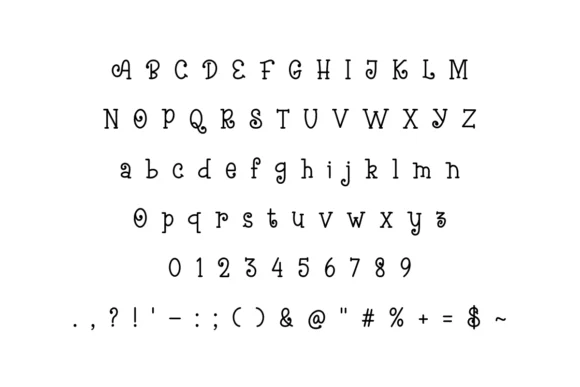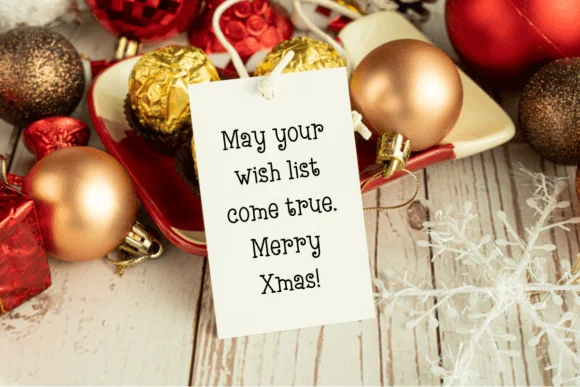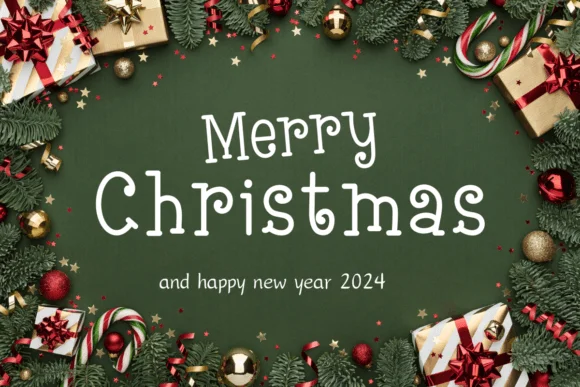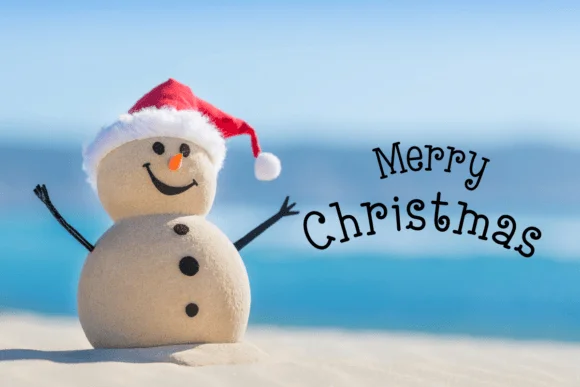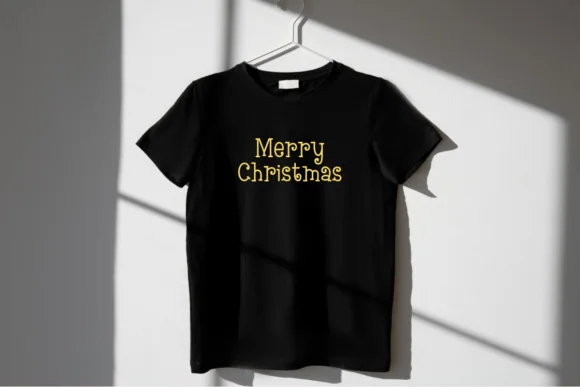
Welcome Christmas Font
This inviting font is perfect for Christmas welcome signs, holiday greeting displays, festive door decorations, Christmas visitor announcements, holiday hospitality branding, welcoming Christmas invitations, front door Christmas messages, festive entry signage, Christmas home decorations, and warm seasonal hospitality communications.
Welcome Christmas Font is exciting because it embodies the warm hospitality and open-hearted invitation that defines the true spirit of Christmas through its embracing letterforms that extend a genuine welcome to all who encounter them. The font features open, friendly characters with welcoming curves and hospitable details that mirror the way Christmas opens hearts and homes to family, friends, and even strangers, incorporating gentle flourishes and inviting proportions that make every reader feel personally welcomed into the Christmas celebration. Each letter showcases the generous spirit and inclusive nature that makes Christmas special, with accessible design and warm touches that create typography as welcoming as a lit doorway on a snowy Christmas evening. The design perfectly captures the essence of Christmas hospitality, creating text that feels like a warm embrace and a sincere invitation to join in the joy and fellowship of the season.
The Welcome Christmas Font family includes hospitable style variations: Regular, Bold, Light, Open, and Warm versions. The collection features special welcoming elements including open door flourishes, hospitality accents, friendly star details, and embracing ornamental touches. Additional components include welcoming borders, hospitable frames, inviting decorations, and warm ornamental designs that enhance the font's welcome Christmas appeal and create cohesive hospitality holiday themes.
Hospitality businesses and welcoming hosts will find Welcome Christmas Font to be an invaluable tool for creating genuine holiday communications that extend sincere invitations and warm Christmas greetings. This graciously crafted font transforms ordinary welcome messages into heartfelt expressions that make every recipient feel valued, included, and genuinely welcomed into the Christmas spirit of love and celebration.
The typeface includes comprehensive character support with welcoming styling that maintains excellent readability while conveying the open hospitality and genuine warmth of Christmas welcome traditions. The font's inviting design ensures beautiful results across both commercial hospitality applications and personal welcome displays.
Perfect for hotels, restaurants, welcoming families, and hospitality-focused Christmas celebrations, this font delivers genuine visual impact that communicates openness, warmth, and the sincere invitation to join in Christmas joy that makes the holiday season a time of universal welcome and shared celebration.